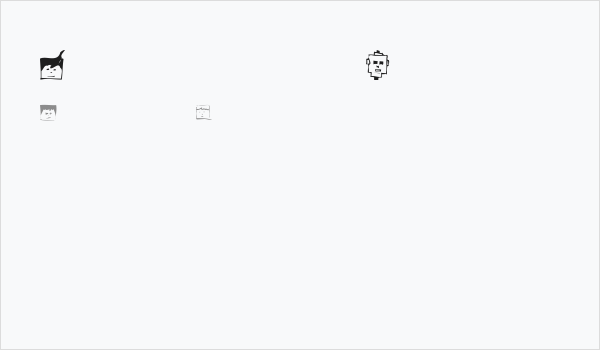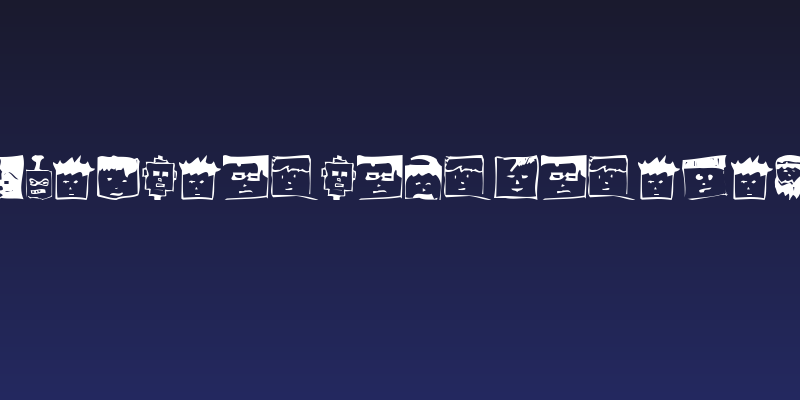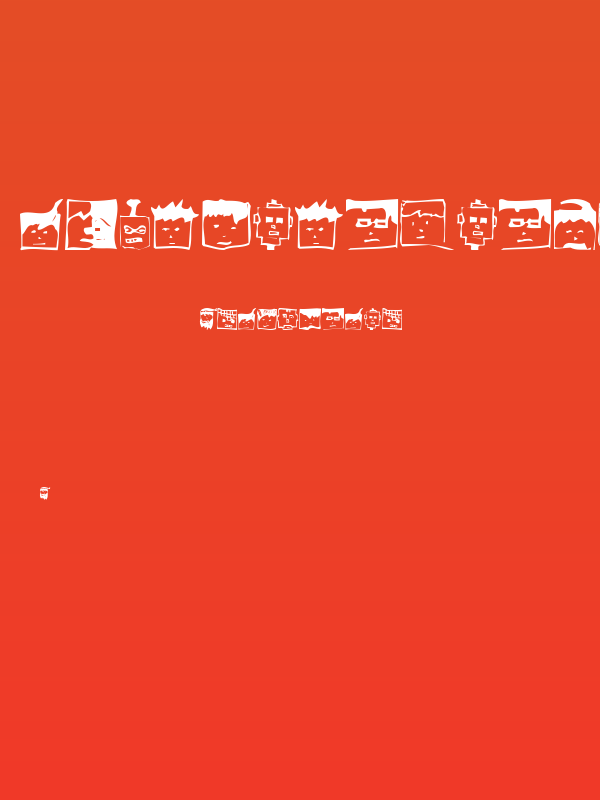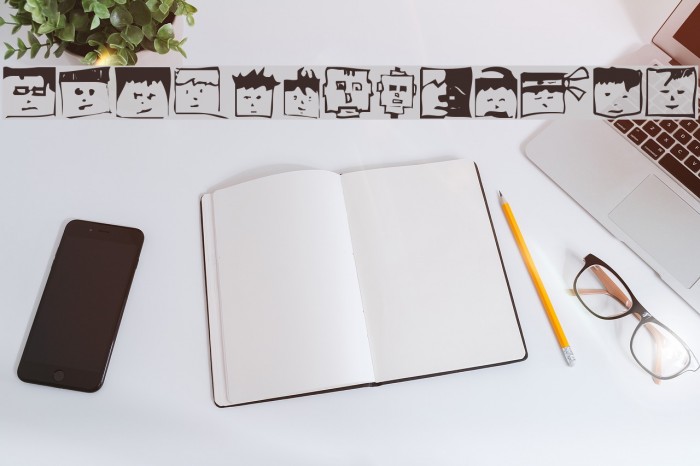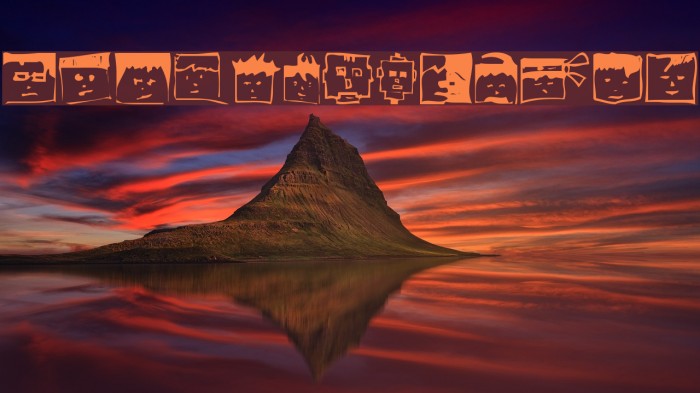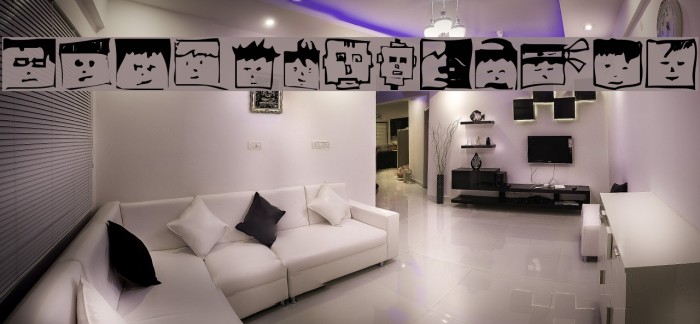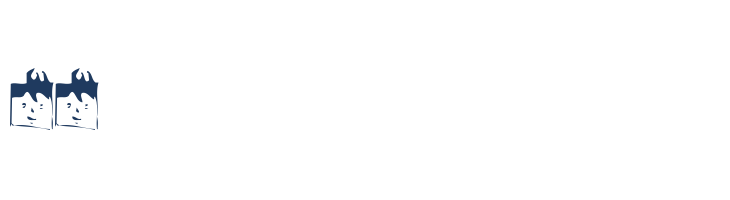
PixelheadHandmadebeta Font
PixelheadHandmadebeta Description
This font is a playful and creative collection of characters, each represented as a unique pixelated face. The design is highly stylized, with each letter and symbol taking on a distinct personality through expressive facial features and varying hairstyles. The characters are enclosed in square frames, giving them a cohesive yet quirky appearance. This font is ideal for projects that require a fun and unconventional aesthetic, as it breaks away from traditional typography norms. The bold, hand-drawn style adds a handmade feel, making it suitable for artistic and informal applications.
| Overall Style | Playful, Artistic |
| Use Case | Logos, Posters, Creative Projects |
| Proposed Projects | Ideal for comic books, children's books, creative posters, and digital art projects. |